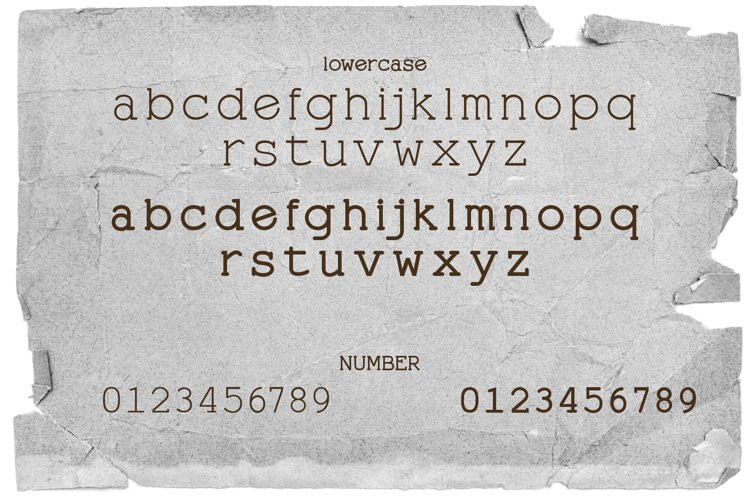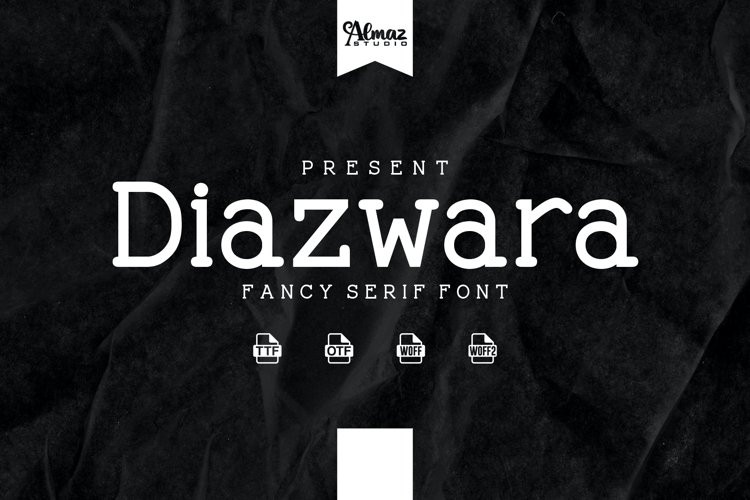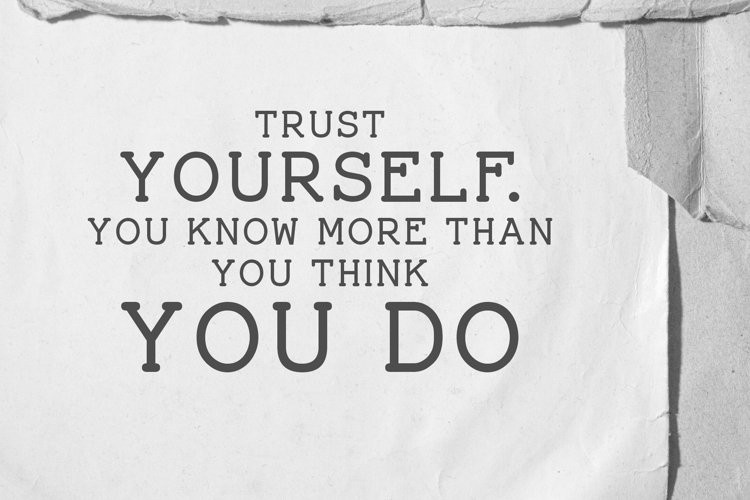
Diazwara Font
Diazwara FontDiazwara is a classy serif rounded font with four different styles, namely Regular, Italic, Bold and Bold Italic. Use this font to beautify your designs, such as invitation, greeting card, business card, signage, cover, menu, brand logo, label, web page, quote, etc. If you are looking for an elegant typeface, with strong impact and delicate details, then Diazwara is the perfect choice for you. With a complete range of resources, old-style and lining figures, fractions, superior and inferior letters, figures, and weights from light to heavy, Diazwara offers a wide variety of combinations for you to create with. A tall condensed typeface specially designed for beautiful titles. So users can choose to make variations or designs on the letters easily. very suitable for use in various applications including brand identity, invitations, magazines, logo designs and others.